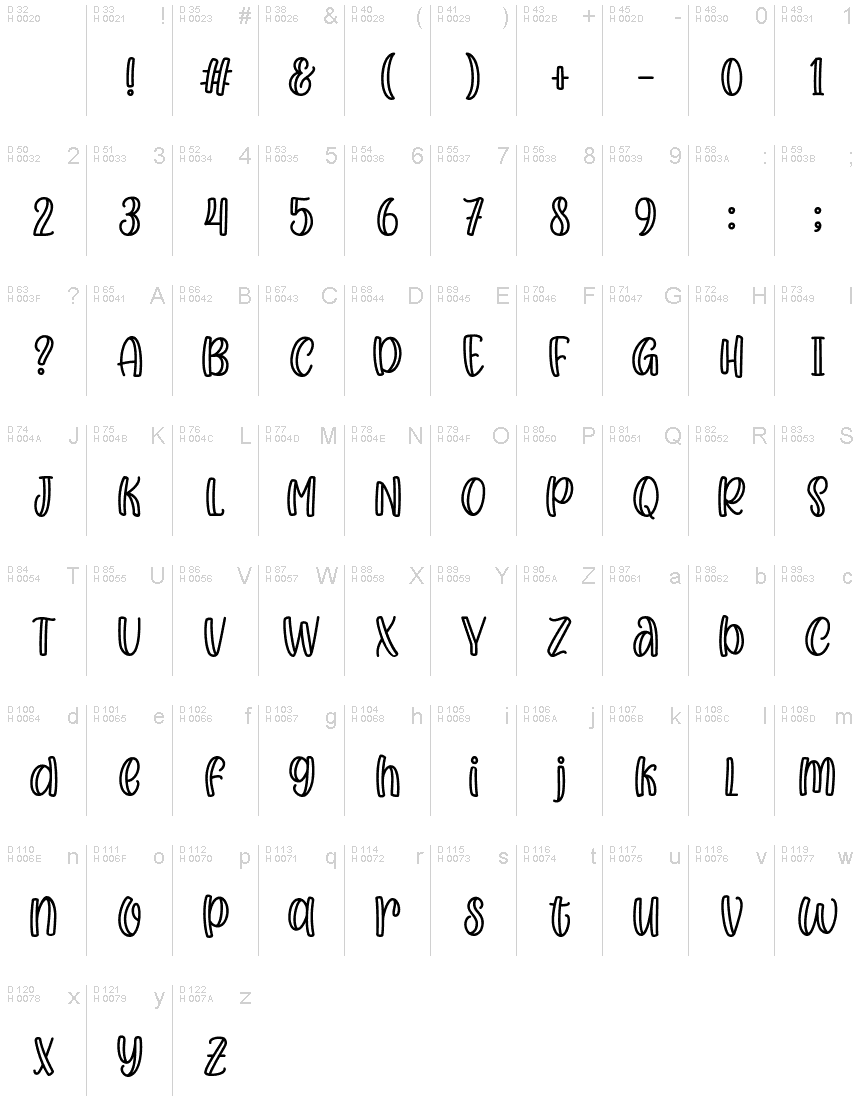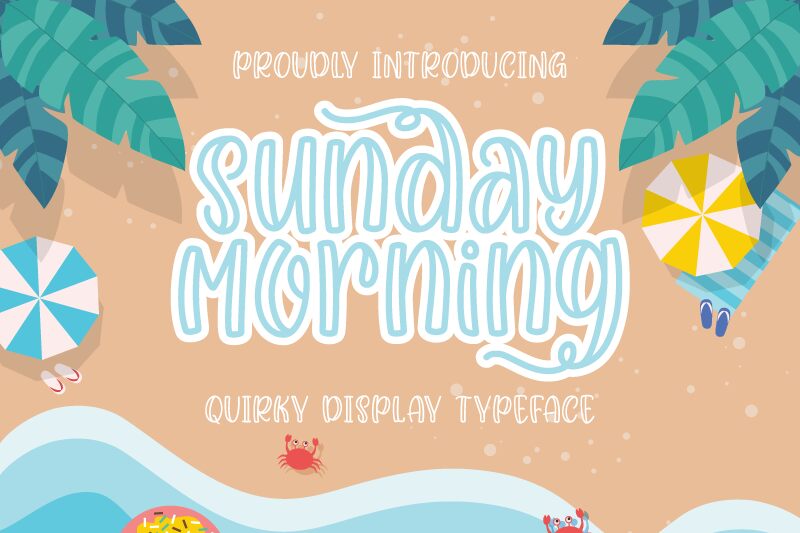
Sunday Morning Regular
Looking for a playful and unique font to add some character to your design projects? Look no further than Sunday Morning, created by the talented designer Rian Rahardi. This quirky display typeface features an outlined style that adds a touch of whimsy to any text it's used with. Its fun and friendly appearance makes it perfect for a wide range of projects, from children's books and posters to food packaging and branding. With its semi-bold width, Sunday Morning is sure to make your words stand out while still maintaining an approachable feel. Try it out for yourself today!